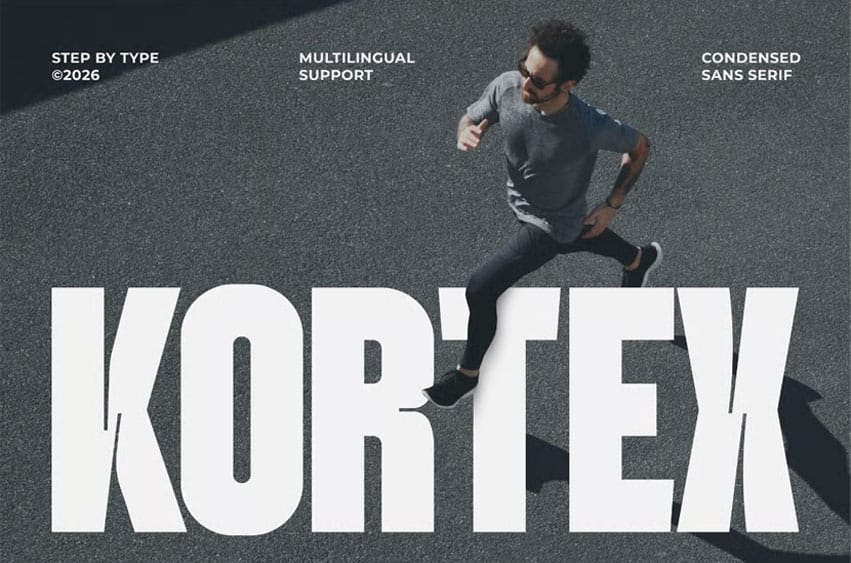
Kortex Font is a bold condensed sans serif font with strong inktrap details and a modern display style. Designed with tall letterforms, heavy shapes, and powerful visual impact, this font is perfect for bold headlines, logos, posters, editorial titles, music covers, event promotions, technology branding, sports graphics, social media visuals, and modern creative layouts.
With its condensed structure and sharp character, Kortex brings a clean, powerful, and memorable look to any design that needs bold typography, strong contrast, and modern visual energy.